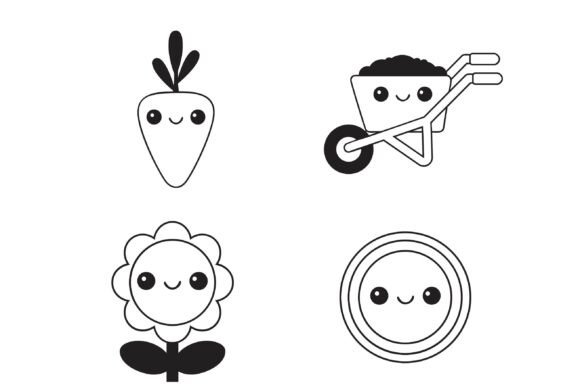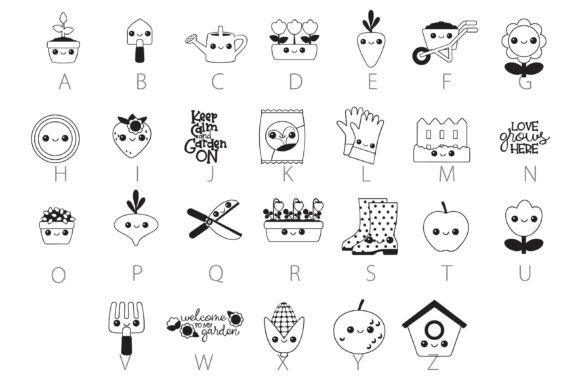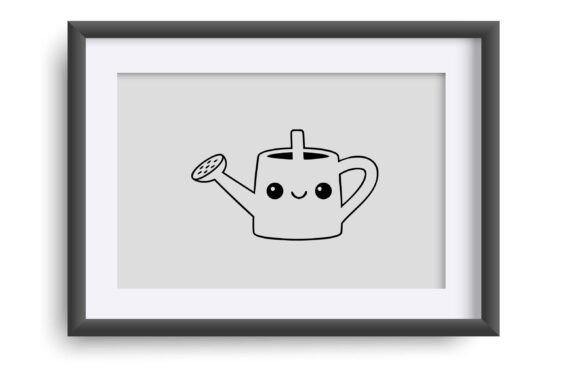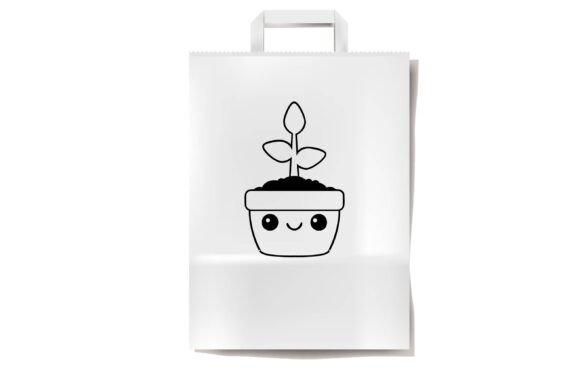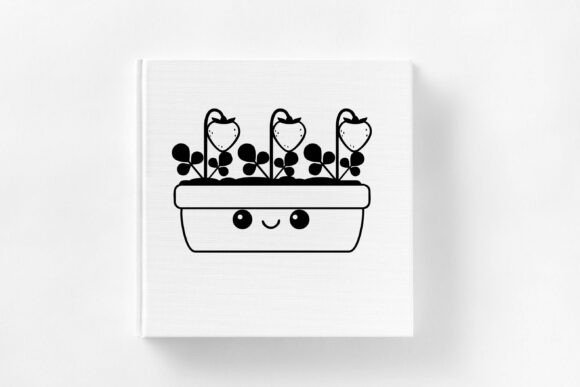
Bring Your Designs to Life with the Baby Bug Garden Font
Have you ever stared at a blank page, trying to come up with the perfect visual element to elevate your project? It’s a familiar feeling for many designers. The perfect font, the right color palette, the ideal graphic – it all comes together to create something truly special. And that’s where the Baby Bug Garden Font comes in – a collection of 26 adorable garden graphics that will add a touch of whimsy to your work.
This kawaii-style dingbat font is a game-changer for designers. With its easy-to-use format and scalable, vector-quality icons, you can add a professional touch to your projects without needing image files or graphic software. Whether you’re working on invitations, social media graphics, or packaging, the Baby Bug Garden Font is the perfect addition to your toolkit. Its consistent line weight and style ensure a cohesive look, making it a valuable asset for designers looking to elevate their work.
Baby Bug Garden Font Key Features
- Font Style: Hand-drawn, whimsical, and playful, perfect for children’s books, nursery decor, and educational materials.
- Unique Characteristics: Features a unique blend of bug and garden elements, creating a visually engaging and educational experience for children.
Baby Bug Garden Font Review
Overall, I found the Baby Bug Garden Font to be a unique and playful addition to any design project. ✨ The rounded edges and whimsical feel of the font give it a childlike charm that’s perfect for illustrations, children’s books, and even nursery decor.
The font is highly customizable, allowing you to adjust the size, color, and even add special effects like shadows and glows. ✨ This level of control is great for designers who want to get creative and really make their designs stand out.
Some limitations of the Baby Bug Garden Font include:
- ⚠️ Limited character set: The font is not suitable for longer blocks of text, as the character set is quite limited. This may not be a problem for designers who are primarily using the font for headings or short quotes.
- ⚠️ Not suitable for formal designs: The playful feel of the font may not be suitable for more formal designs, such as business reports or academic papers.
Overall, I would recommend the Baby Bug Garden Font for designers who are looking for a fun and whimsical font to add some personality to their designs. While it may have some limitations, it’s a great choice for projects that require a touch of playfulness and creativity.
Getting the Most Out of Baby Bug Garden Font
To get the most out of the Baby Bug Garden Font, use it for designs that require a playful and whimsical touch. Some common use cases include:
- Children’s party invitations
- Wedding stationery
- Food labels and packaging
- DIY crafts and scrapbooking
The Baby Bug Garden Font is ideal for designs that require a touch of innocence and playfulness. It’s perfect for designs related to nature, children, and whimsy.